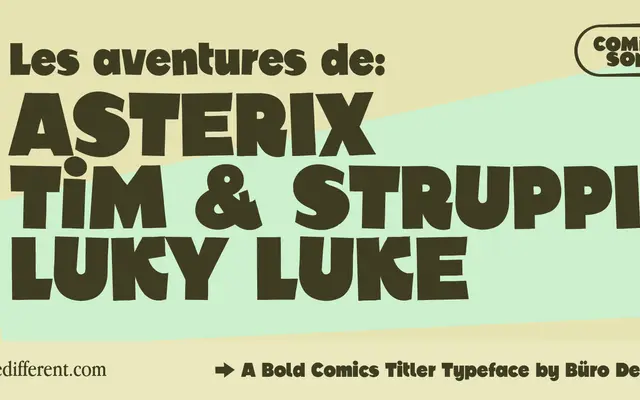
BD Karlo
Type Different · 2024
A comic-inspired titler with three stylistic flavours and a variable font axis controlling baseline wiggle.
BD Karlo comes in clean straight, clean wiggly and subtly distressed wiggly variants, with the variable font allowing fine control over the degree of baseline undulation. Stylistic set alternates offer further character-level variation for capital letters. Language support covers a broad range of Latin-based European scripts.
A cartoony titler with variable baseline wiggle and optional distressing, firmly in the display category with comic-book vernacular aesthetics.